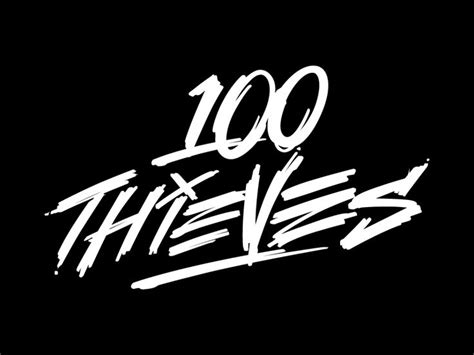
100 Thieves Evan Eckard
100 Thieves Font. King of thieves script font is the font based on the 2019 aladdin movie logo. I'm trying to make cool graphics for my iphone.
I'm trying to make cool graphics for my iphone. Web nadeshot's team 100 thieves what is there font. This font is designed by joannavu. King of thieves script font is the font based on the 2019 aladdin movie logo.
This font is designed by joannavu. King of thieves script font is the font based on the 2019 aladdin movie logo. Web nadeshot's team 100 thieves what is there font. I'm trying to make cool graphics for my iphone.